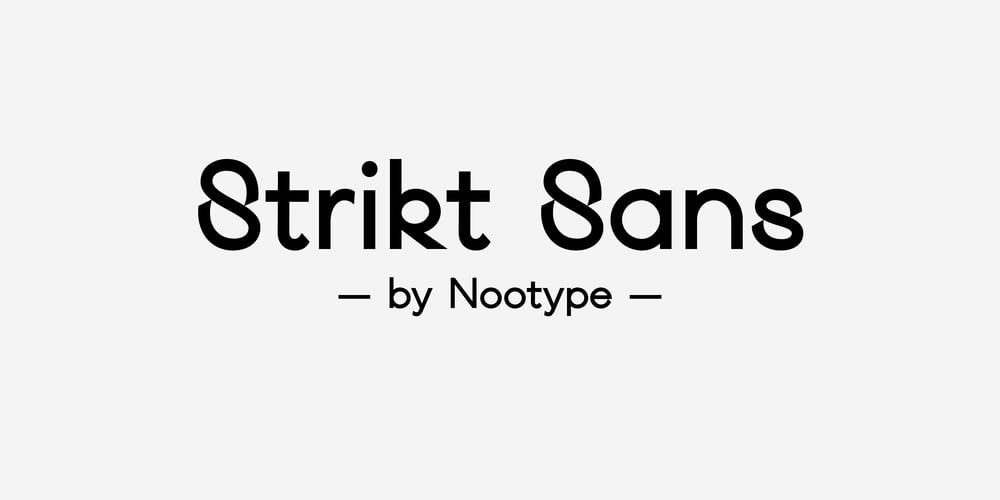
Strikt Sans Font Family was designed by Nico Inosanto and published by Nootype. Strikt Sans contains 8 styles and family package options. The idea behind Strikt Sans was to made a grotesque family with exaggerated curves combined with low contrasted aspect. Letters such as G, S or C are completely closed in any styles. The italic has a very accentuated angle at 30°, which gives a stressed and interesting appearance. This family contains many OpenType features, such as Alternates, Proportional Figure, Tabular Figures, Old Styles Figures, Numerators, Superscript, Denominators, Scientific Inferiors, Subscript, Ordinals and Fractions, which make that typeface useful in various projects. Strikt Sans family supports Latin and Cyrillic, all these languages are covered:Latin language support:Afar, Afrikaans, Albanian, Asturian, Azeri, Basque, Bosnian, Breton, Bulgarian, Catalan, Cornish, Corsican, Croatian, Czech, Danish, Dutch, English, Esperanto, Estonian, Faroese, Filipino, Finnish, Flemish, French, Frisian, Friulian, Gaelic, Galician, German, Greenlandic, Hungarian, Icelandic, Indonesian, Irish, Italian, Kurdish, Latin, Latvian, Lithuanian, Luxembourgish, Malagasy, Malay, Maltese, Maori, Moldavian, Norwegian, Occitan, Polish, Portuguese, Provençal, Romanian, Romansch, Saami, Samoan, Scots, Scottish, Serbian, Slovak, Slovenian, Spanish, Swahili, Swedish, Tagalog, Turkish, Walloon, Welsh, WolofCyrillic language support:Adyghe, Avar, Belarusian, Bulgarian, Buryat, Chechen, Erzya, Ingush, Kabardian, Kalmyk, Karachay-Balkar, Karakalpak, Kazakh, Komi, Kyrgyz, Lak, Macedonian, Moldovan, Mongol, Permyak, Russian, Rusyn, Serbian, Tatar, Tofa, Tuvan, Ukrainian, Uzbek